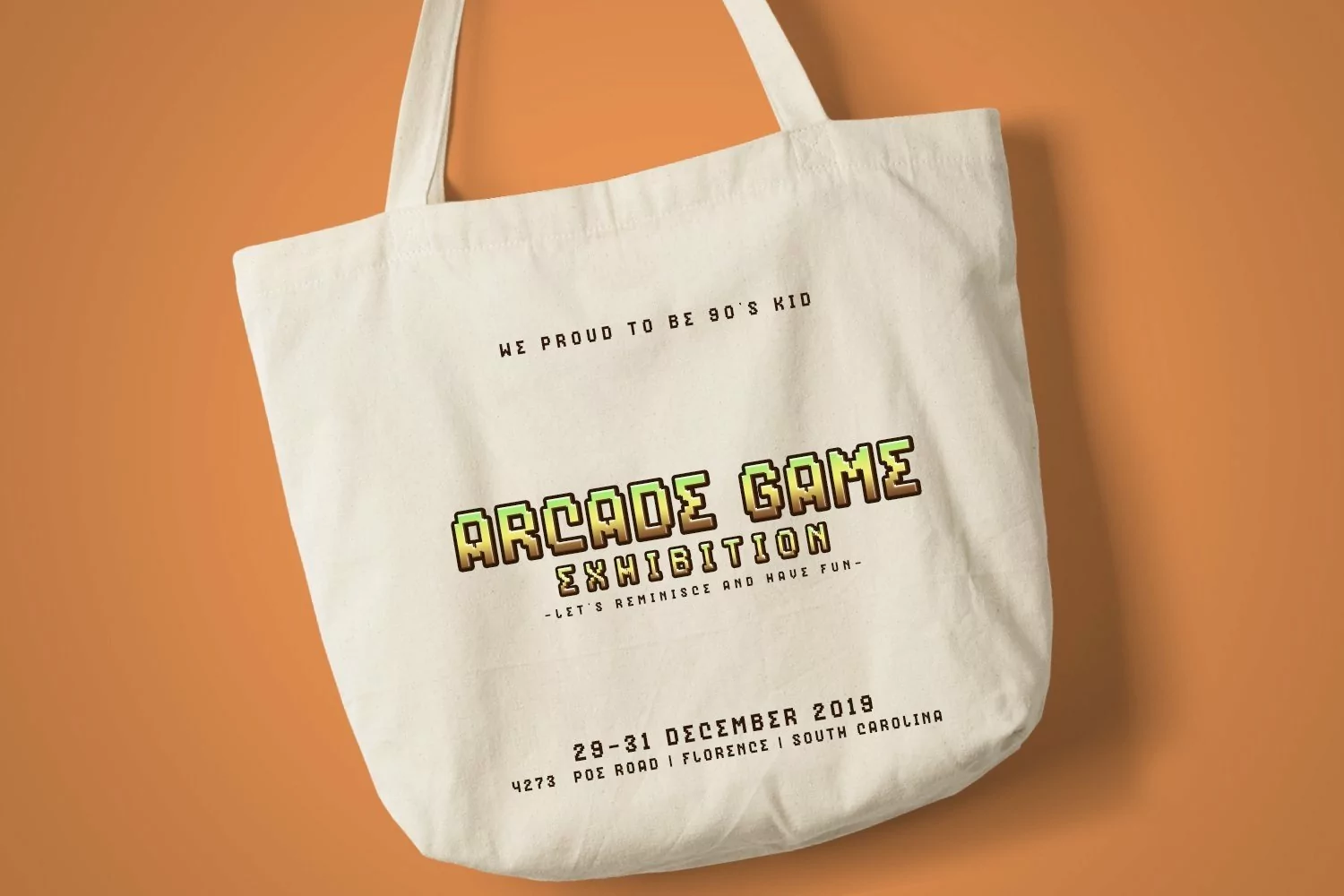
Web Font Pixela
Pixela is a pixel display typeface. perfect for poster, quotes, game arcade, t-shirt design, tittle, headline, merchandise, packaging, logo and many more.